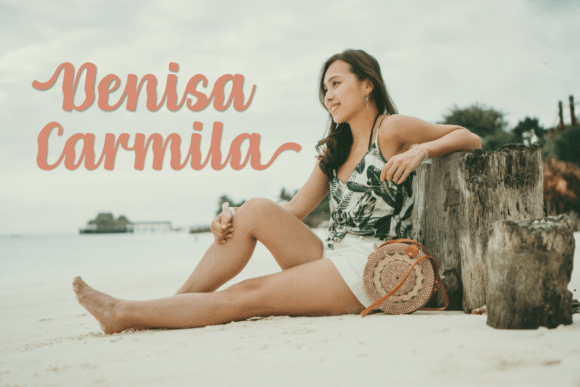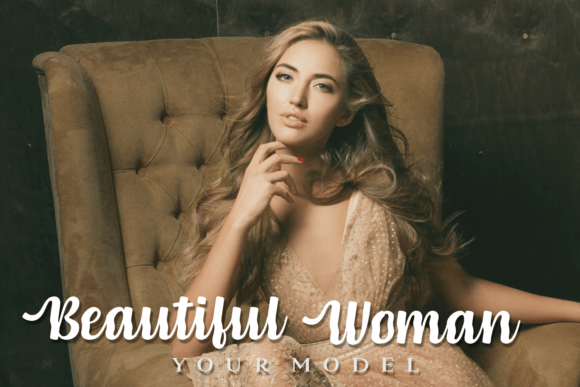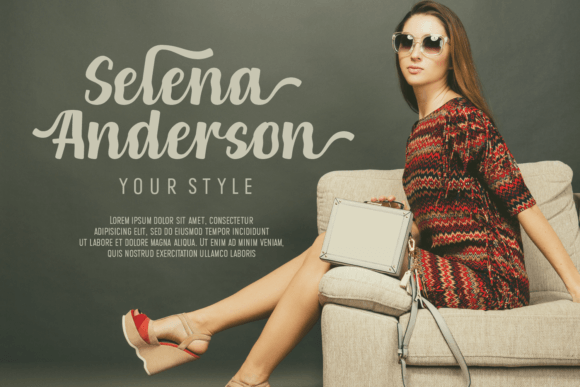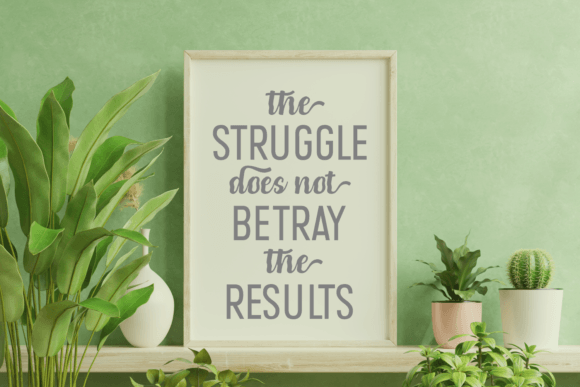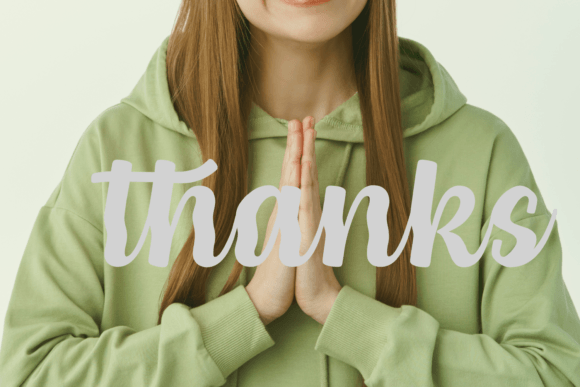
Unlock the Magic of Blending Pade Font
You know that feeling when you stumble upon a font that just clicks? The one that makes your design pop and your message shine? For many designers, that moment of serendipity is what makes all the difference between a good project and a great one. For me, it was the moment I discovered the Blending Pade Font.
This playful and stylish font is more than just a pretty face – it’s a versatile tool that can elevate both professional and casual designs. From branding and labels to packaging and posters, Blending Pade Font has got you covered. And with its PUA encoding, you can access all the amazing glyphs and ligatures with ease, taking your designs to the next level.
For designers, the Blending Pade Font is a valuable addition to any toolkit. Its unique blend of style and functionality makes it a go-to choice for projects that require a little extra something special. Whether you’re working on a high-end brand or a fun social media post, this font is sure to bring a smile to your face and a touch of magic to your design.
Key Features of Blending Pade Font
- Character Set: This font includes a wide range of characters, including Latin, Cyrillic, and Greek alphabets, as well as punctuation marks and symbols.
- Unique Characteristics: This font features a unique blend of modern and vintage elements, with subtle texture and subtle nuances that give it a distinctive, hand-crafted feel.
- Weight and Style: Blending Pade Font is available in 6 different weights, ranging from Light to Black, as well as 3 different styles: Regular, Italic, and Bold Italic.
- Kerning and Ligatures: The font includes advanced kerning and ligature pairs, ensuring that text sets are rendered with optimal spacing and readability.
Designer Review: Blending Pade Font
Overall, I’d say the Blending Pade Font is a unique and stylish choice for designers looking to add some personality to their projects. ✨ One of the things I appreciate most about this font is its versatility – it can be used for both headings and body text, making it a great option for projects that require a consistent look and feel.
Another strength of the Blending Pade Font is its ability to blend in with its surroundings. ✨ The subtle nuances in letterform design allow it to sit comfortably alongside other fonts, making it easy to create a cohesive visual identity.
Here are some of the key benefits of the Blending Pade Font:
- Highly customizable with a wide range of weights and styles
- Supports multiple languages and character sets
- Works well in both digital and print applications
- Some users may find the font too subtle or understated
- Lack of bold or dramatic headline options
- May not be suitable for projects that require a lot of emphasis or hierarchy
- ⚠️ May require some adjustment to get the spacing and alignment just right
Overall, I think the Blending Pade Font is a solid choice for designers who want a reliable, easy-to-use font that can add a touch of elegance to their projects. With a little practice and patience, it’s definitely worth considering for your next design project.
Blending Pade Font: A Practical Application Guide
Getting the Most Out of Pade Font
To get the most out of Pade Font, try experimenting with different font sizes, colors, and styles. You can also combine Pade Font with other fonts to create a unique and eye-catching design.
Pade Font is commonly used in graphic design, typography, and branding. It’s a versatile font that can be used for a variety of purposes, from logos and business cards to posters and brochures.